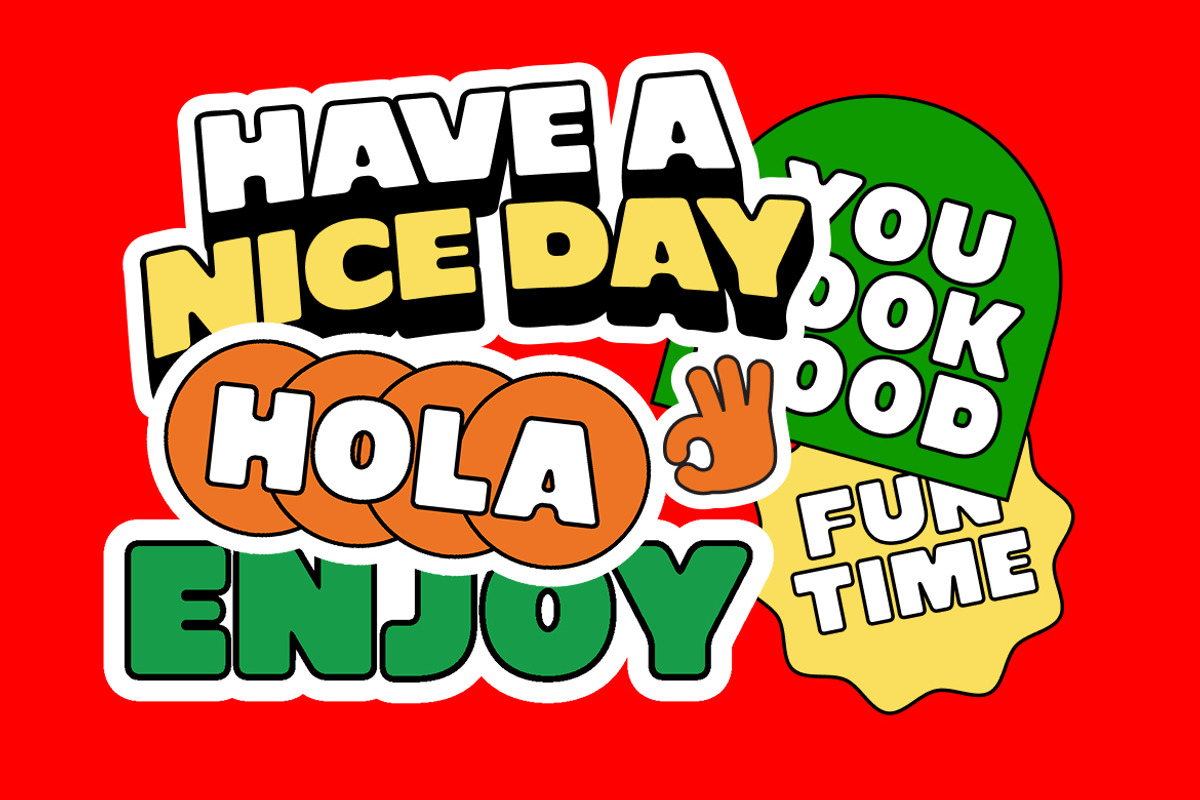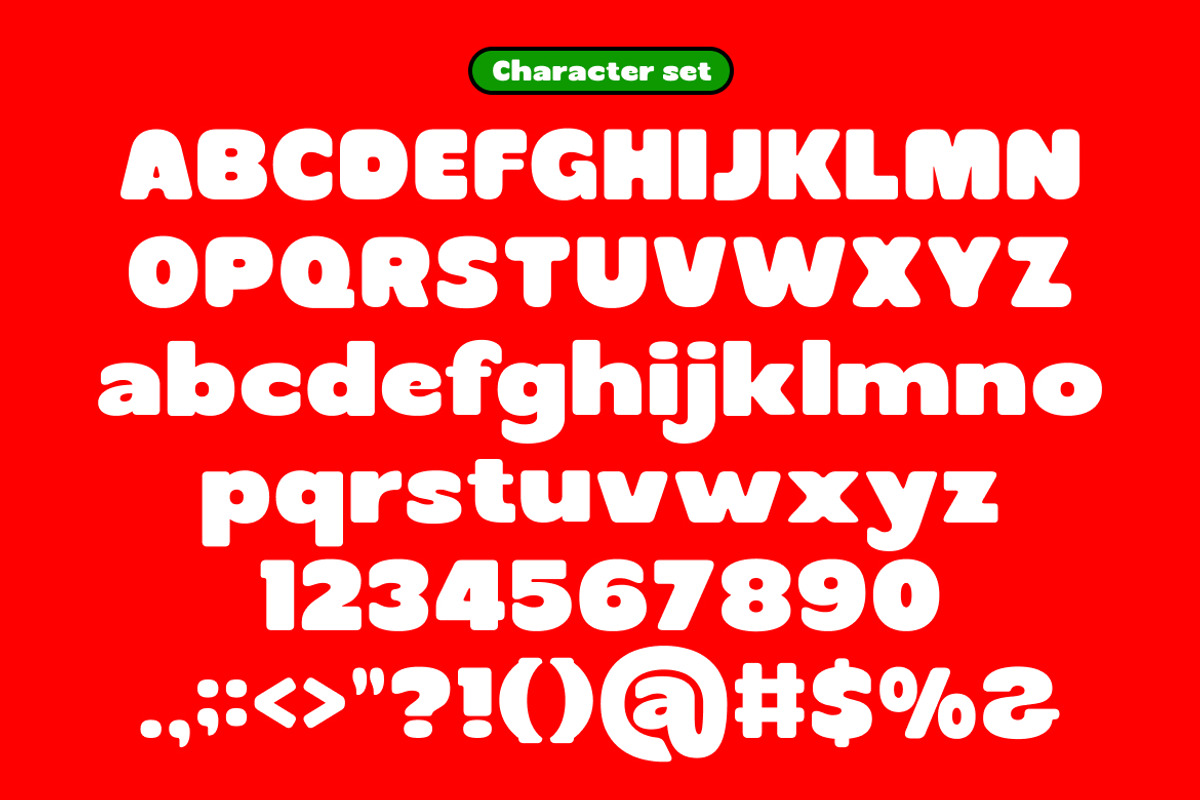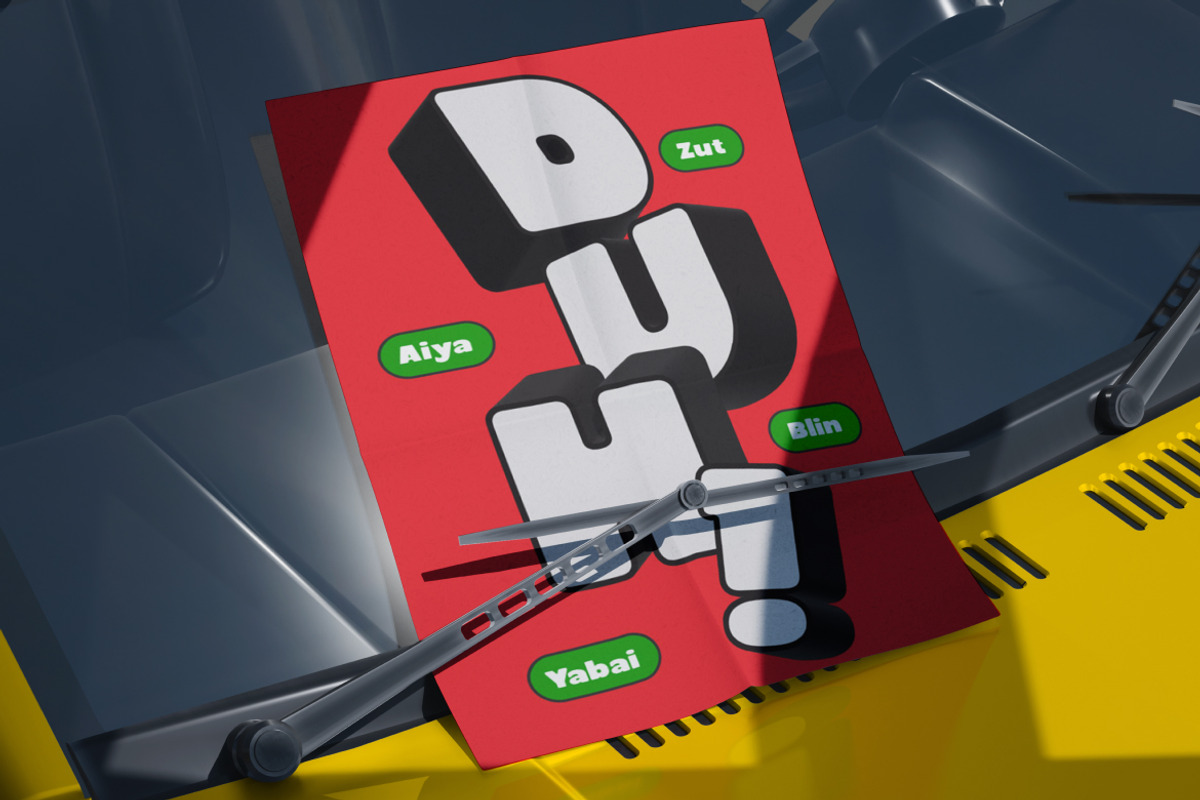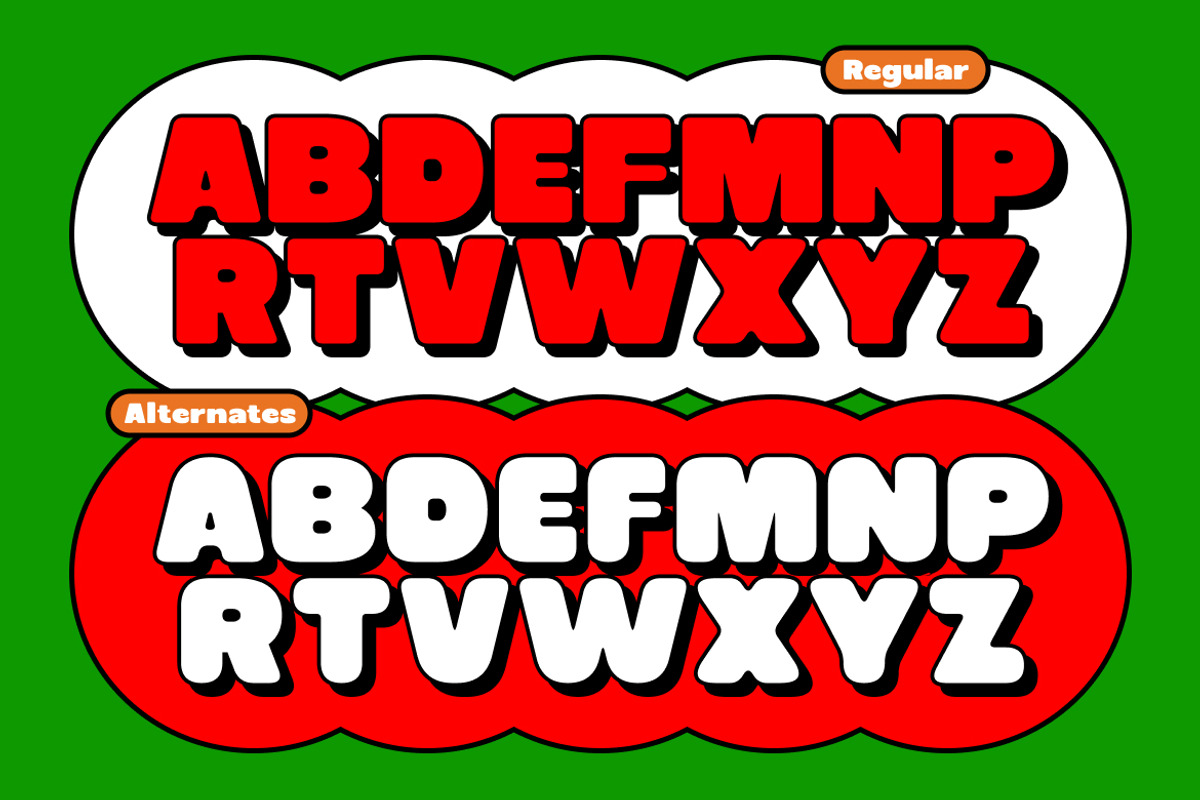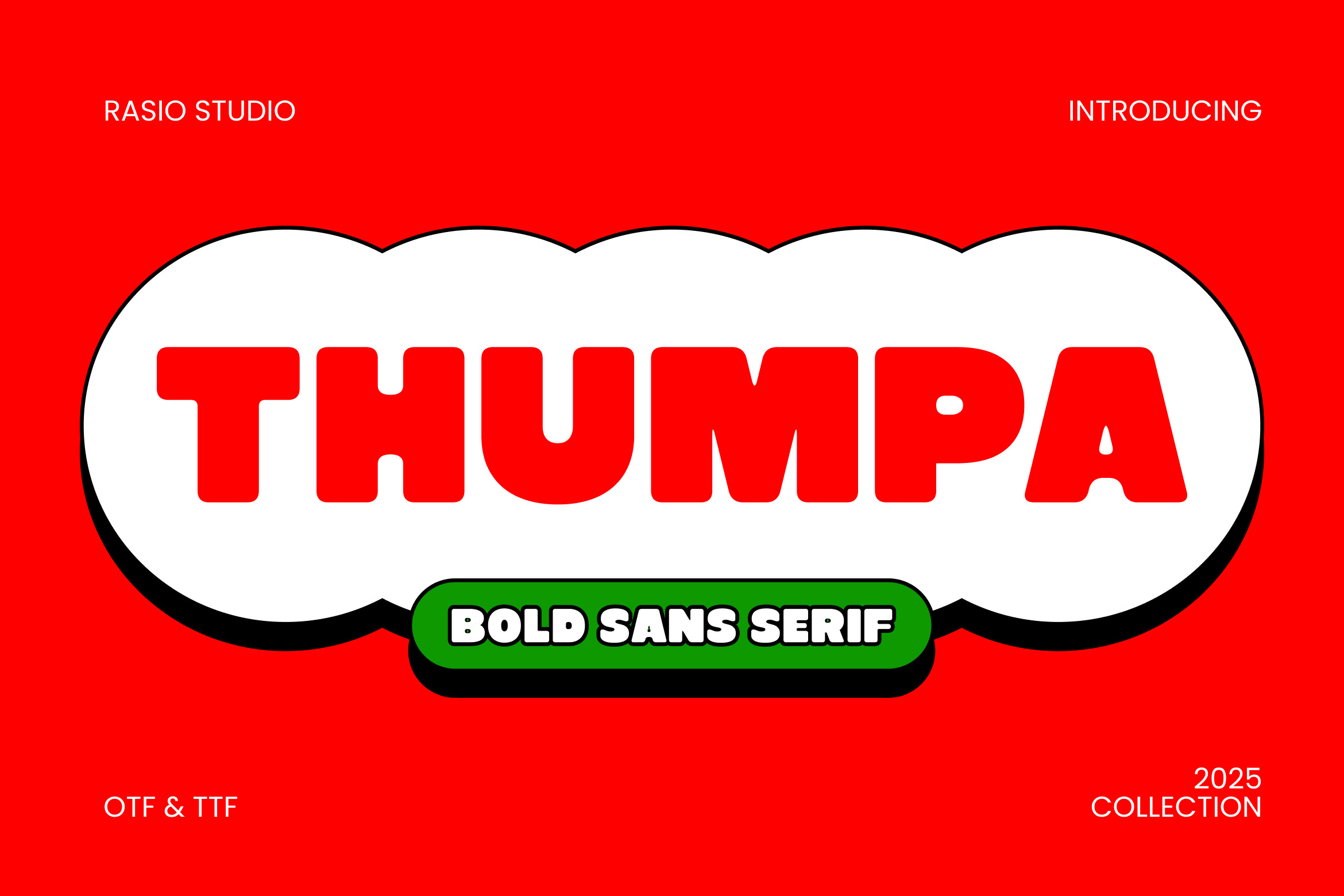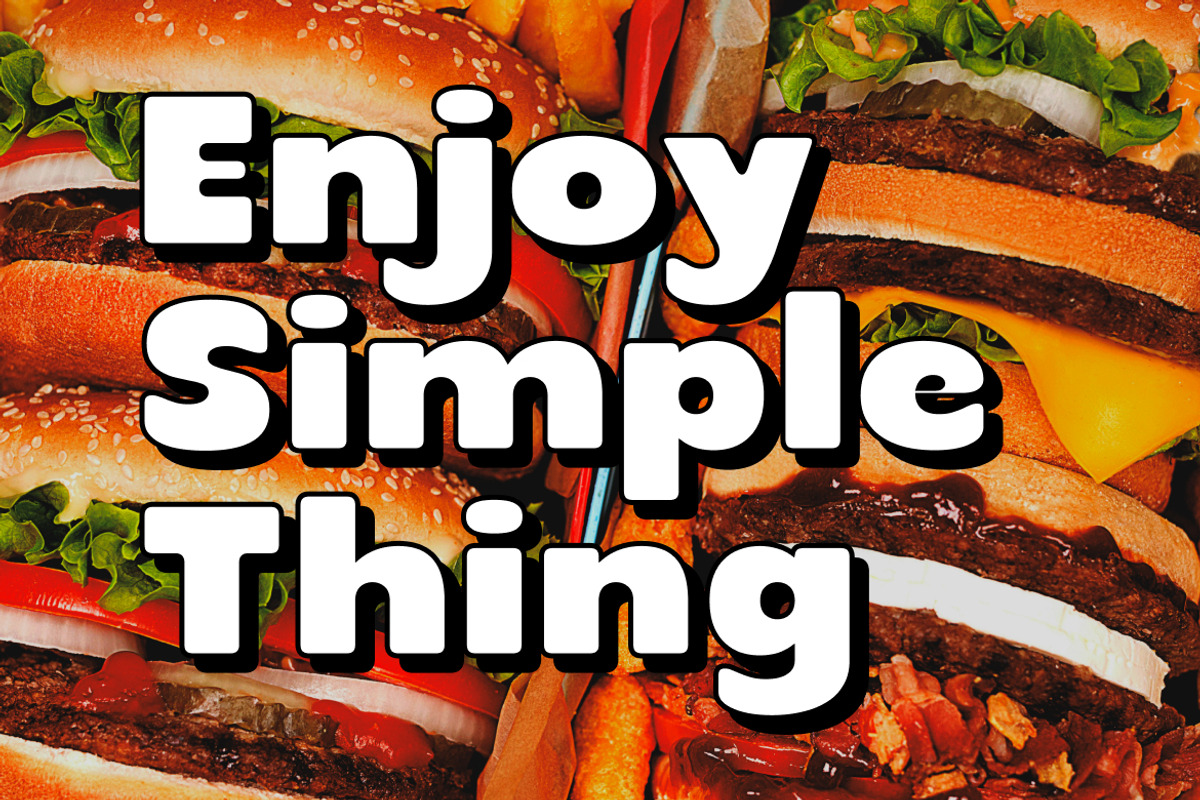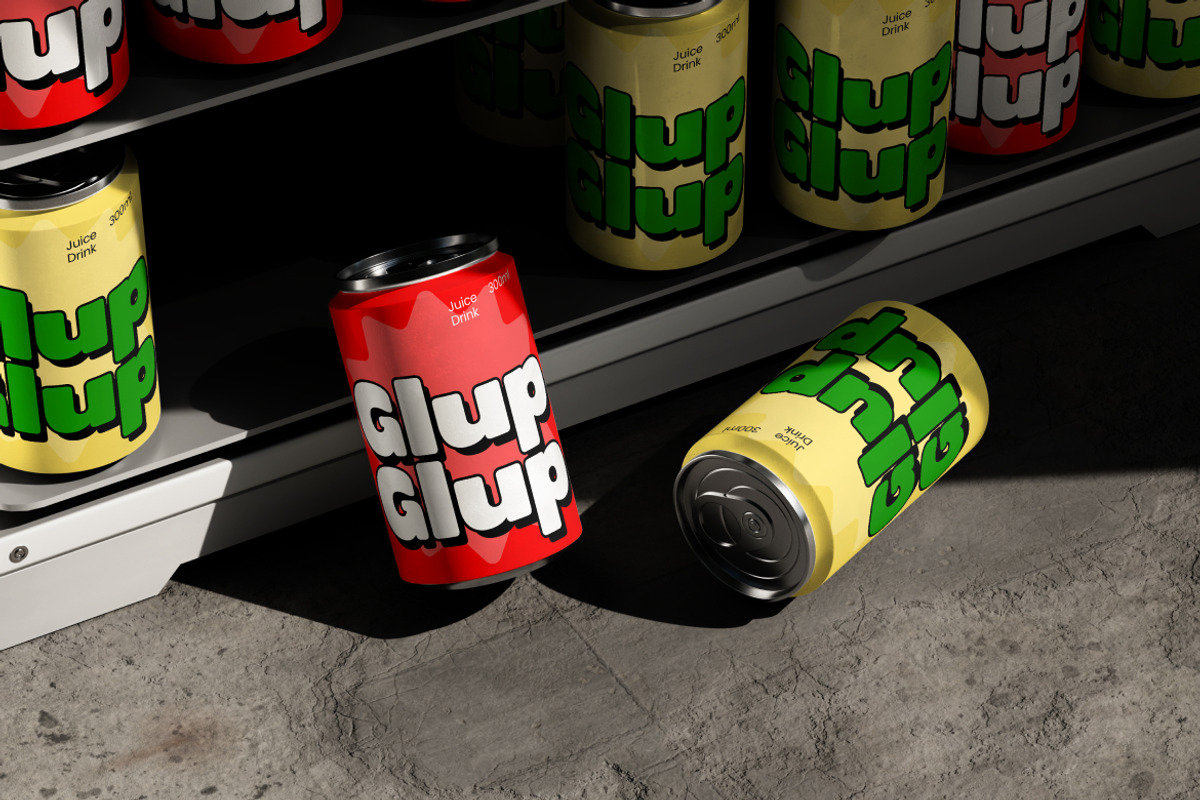
Thumpa Bold Sans Serif Font
Thumpa is a bold playful sans serif font designed with chunky letterforms, soft rounded corners, and a strong visual presence. Built for impact, this typeface combines thick strokes with friendly curves, creating a fun and energetic personality that instantly grabs attention. The font includes uppercase, lowercase, numerals, and punctuation, making it versatile for both creative and commercial projects.
Thumpa is highly relevant for projects that require bold personality and visual impact. It works perfectly for food and beverage branding, burger shops, snack packaging, children’s products, posters, social media promotions, YouTube thumbnails, and playful advertising campaigns. Its thick and rounded structure makes it especially effective for headlines and attention-grabbing designs.
- Chunky bold construction with strong, rounded geometric forms
- Soft curved edges that create a friendly and approachable personality
- Thick, uniform strokes for maximum visual impact and clarity
- Playful proportions that enhance energetic headline presence
- Generous spacing optimized for bold display and attention-grabbing layouts
- Food and beverage branding that needs bold visual impact
- Kids products and playful brand identity systems
- Poster designs and eye-catching promotional materials
- Product packaging that demands fun and strong personality
- Social media graphics and advertising campaigns with high energy
Turn up the fun with Thumpa and make every headline pop with bold energy